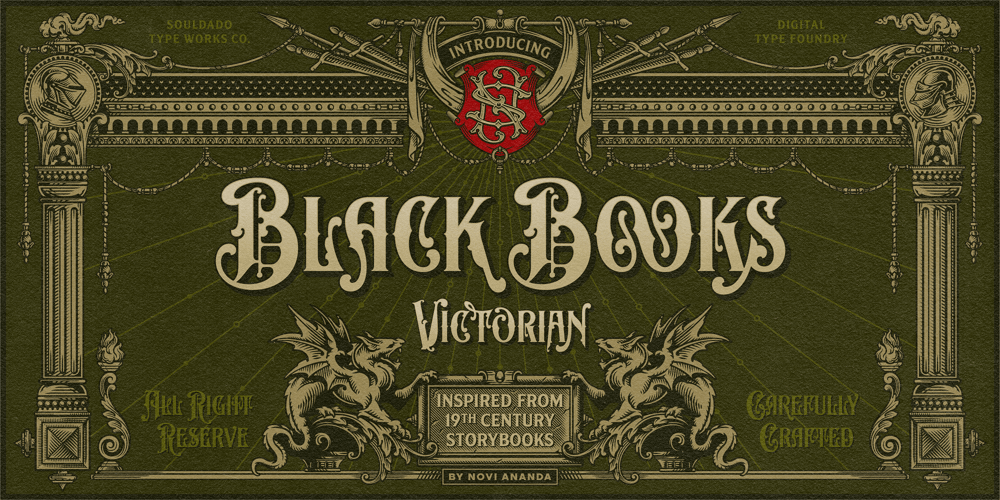
NS Blackbooks Victorian
NS Blackbooks Victorian font
NS Blackbooks Victorian Font Family was designed by Novi Ananda and published by Novi Souldado. NS Blackbooks Victorian contains 1 styles and family package options. Reminiscing the old era of historical books (seriously, that old), circa 19th century. We crafted the letters by connecting the dots from the past with research for every flow, ornaments, look, and feel, to precisely aim for that perfect shape.Ephemera Blackbooks are born with a dark and robust personality. Feel the European historical mood right away, even with just typing it with your keyboard. You don’t even realize when the design is done cause we make it so easy as a one-click-time-machine to your works using Ephemera Blackbooks font.It will be a perfect armory for a vintage headline, old book cover concept, sign, posters, playing cards deck design, vintage labels, beer labels, bar decoration, apparel, merchandising, you name it. OTF Features : Stylistic Set 01 to 07 and Ligature Glyph Count : 355 glyphs Language support : Afrikaans, Albanian, AsuBasque, Bemba, Bena, Breton, Catalan, Chiga, Cornish, Danish, Dutch, English, Estonian, Faroese, Filipino, Finnish, French, Friulian, Galician, German, Gusii, Indonesian, Irish, Italian, Kabuverdianu, Kalenjin, Kinyarwanda, Luo, Luxembourgish, Luyia, Machame, Makhuwa-Meetto, Makonde, Malagasy, Manx, Morisyen, North Ndebele, Norwegian, Bokmål, Norwegian Nynorsk, Nyankole, Oromo, Portuguese, Quechua, Romansh, Rombo, Rundi, Rwa, Samburu, Sango, Sangu, Scottish Gaelic, Sena, Shambala, Shona, Soga, Somali, Spanish, Swahili, Swedish, Swiss German, Taita, Teso, Uzbek (Latin), Volapük, VunjoZulu